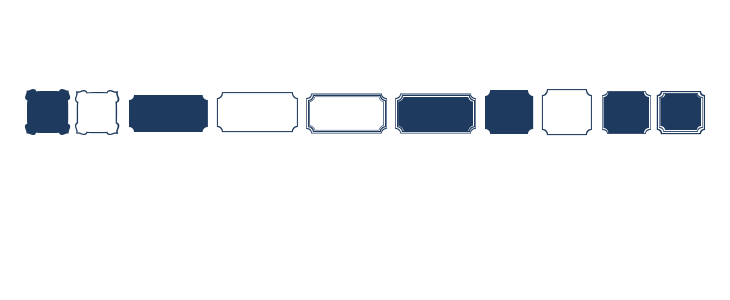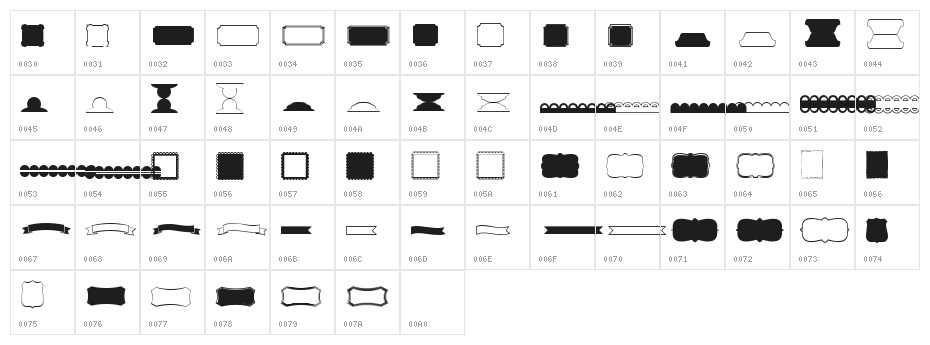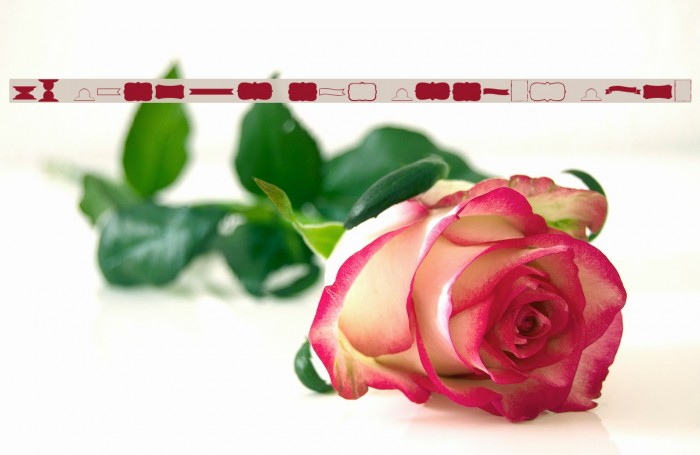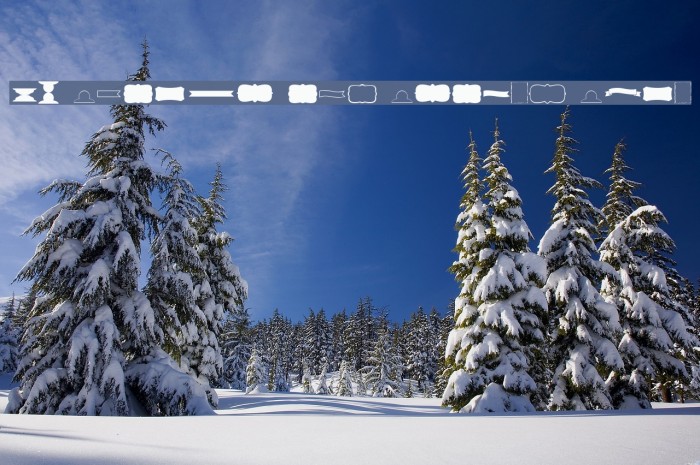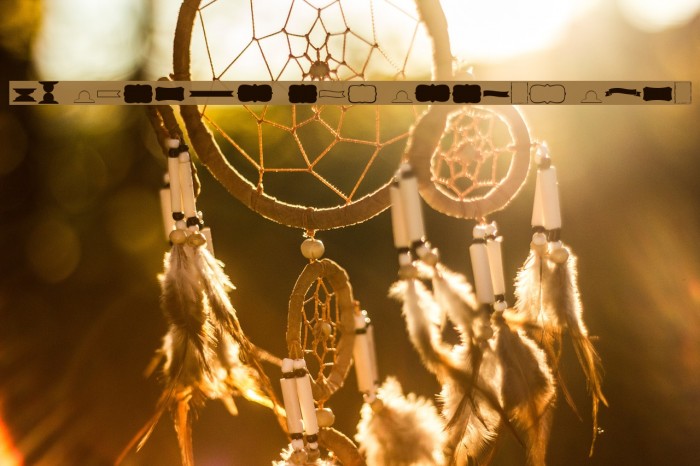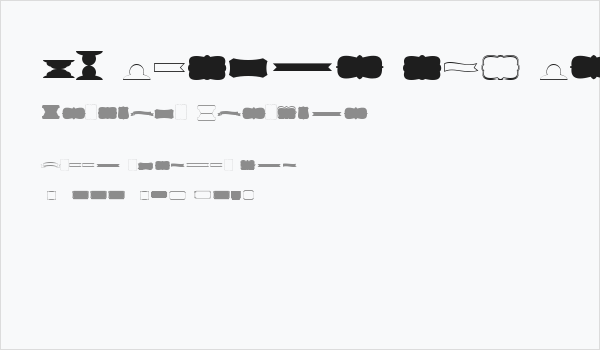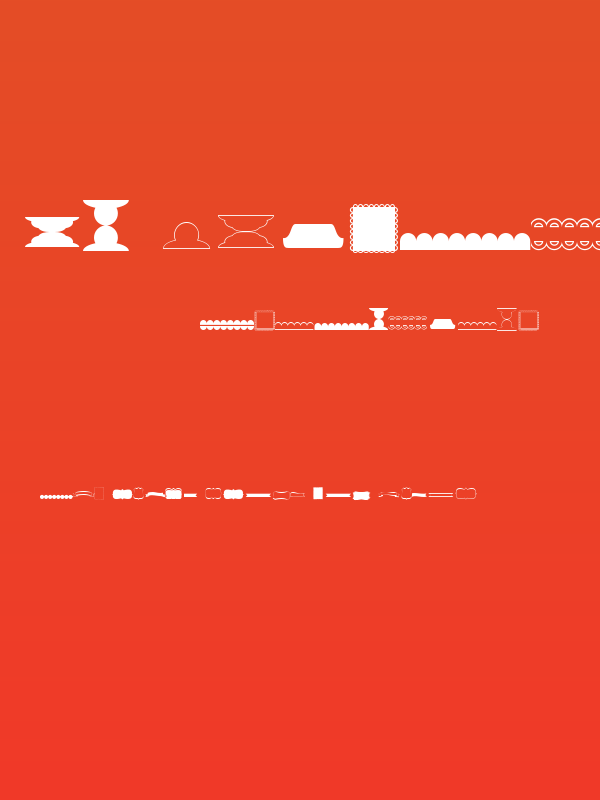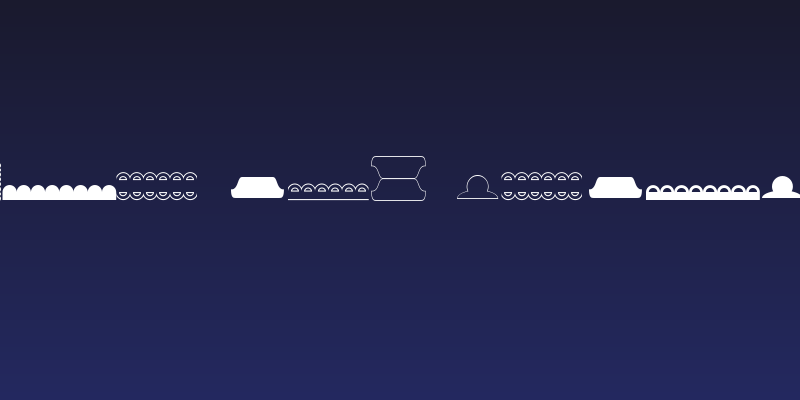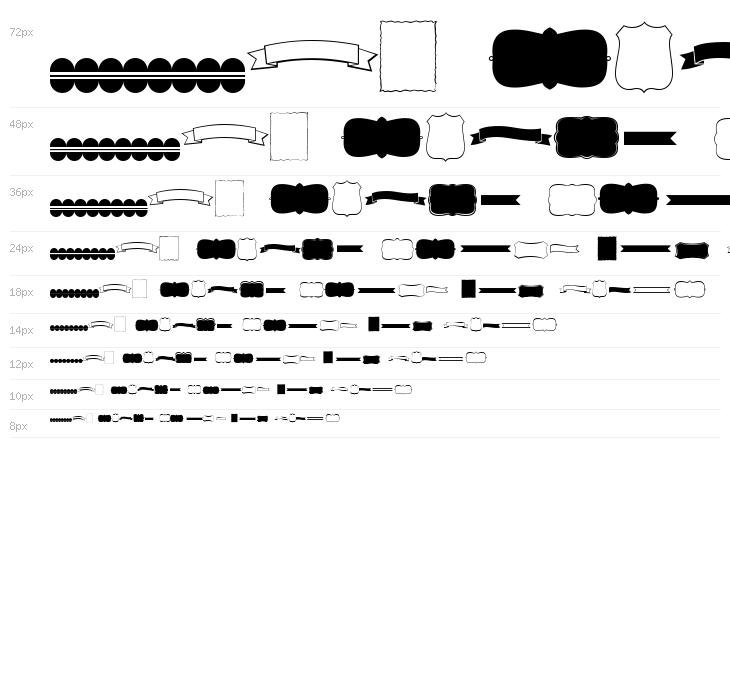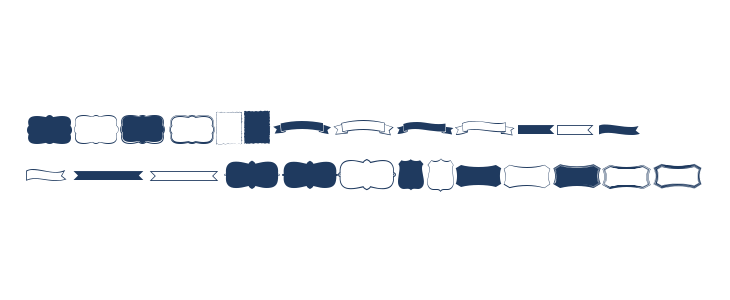
KG Flavor and Frames Five Font
KG Flavor and Frames Five Description
This collection features a variety of decorative frames and shapes, each with unique contours and styles. The designs range from simple geometric forms to more intricate and ornate patterns. These elements are ideal for adding a touch of elegance or whimsy to any project. The frames vary in thickness and style, offering both bold and subtle options. The shapes are versatile, suitable for use in digital and print media, enhancing visual appeal with their distinct outlines and creative flair.
| Use Case | Logos, Decorative elements, Invitations |
| Proposed Projects | Ideal for scrapbooking, digital design, invitations, and creative projects requiring decorative elements. |